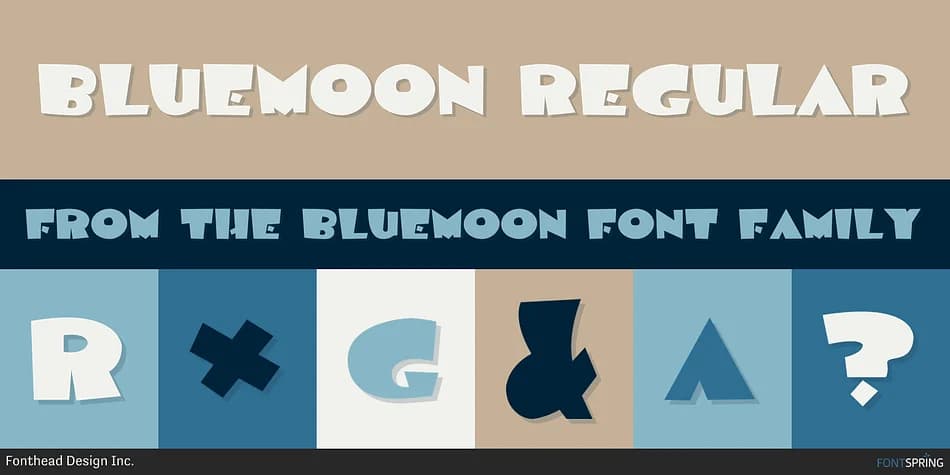
About BLUEMOON Font
BLUEMOON is a decorative font designed by Fonthead Design. BLUEMOON is a premium font β see the listing for pricing and license terms. Decorative fonts like BLUEMOON work best for logos, posters, packaging, and standout headlines.
BLUEMOON Font is a decorative font that shines as a display or heading face. Pair it with a clean sans-serif or serif font for body text β the contrast creates a clear hierarchy while the two styles stay balanced and easy to read.
BLUEMOON Font
BLUEMOON Font is a decorative typeface by Fonthead Design, ideal for logos, invitations, branding, and creative projects.